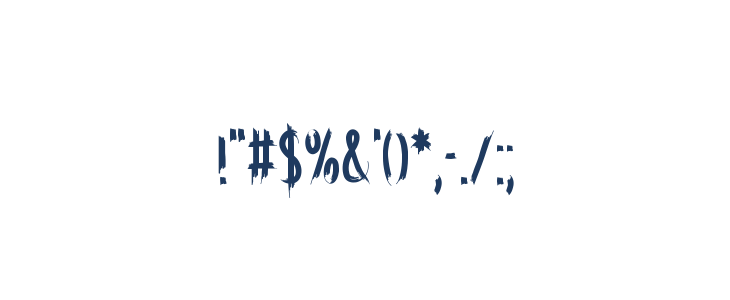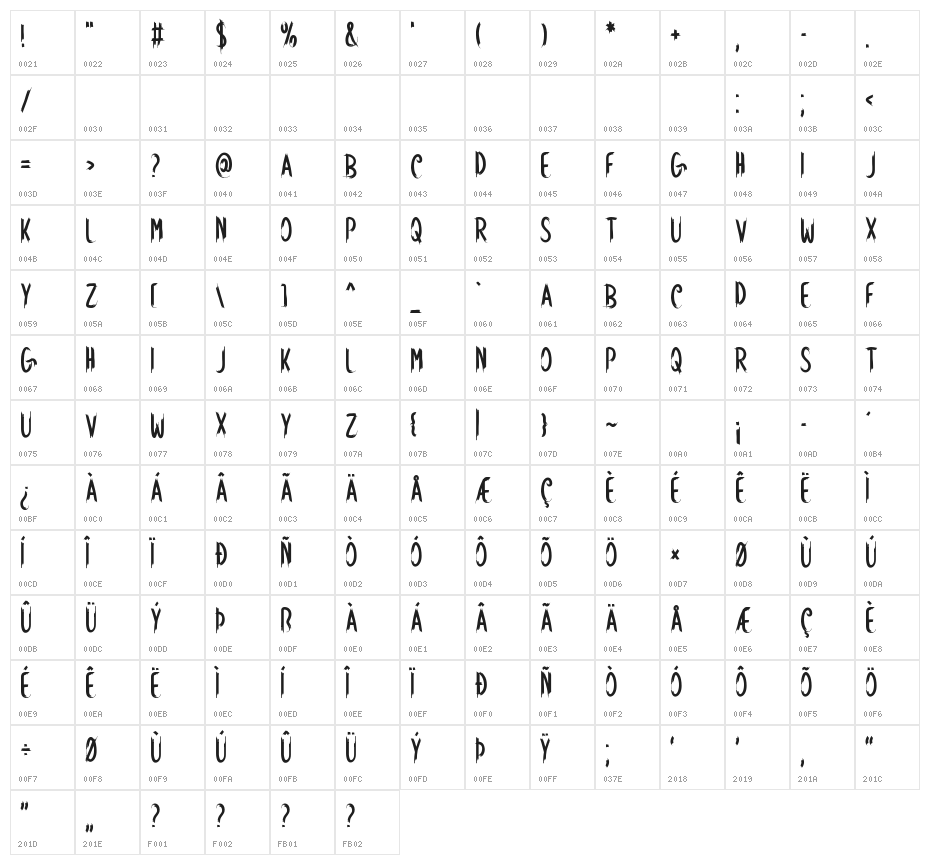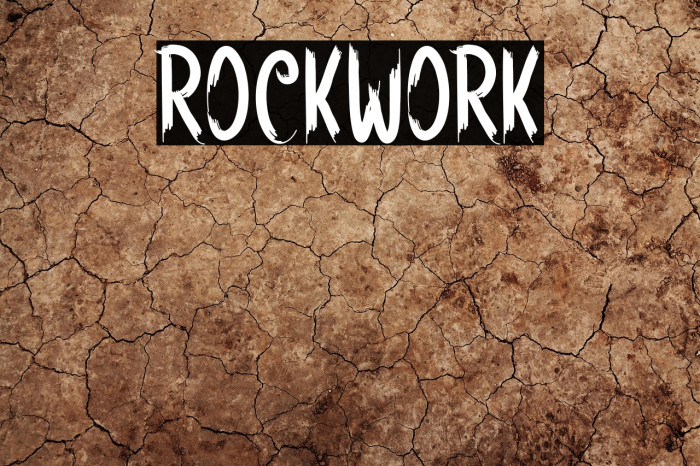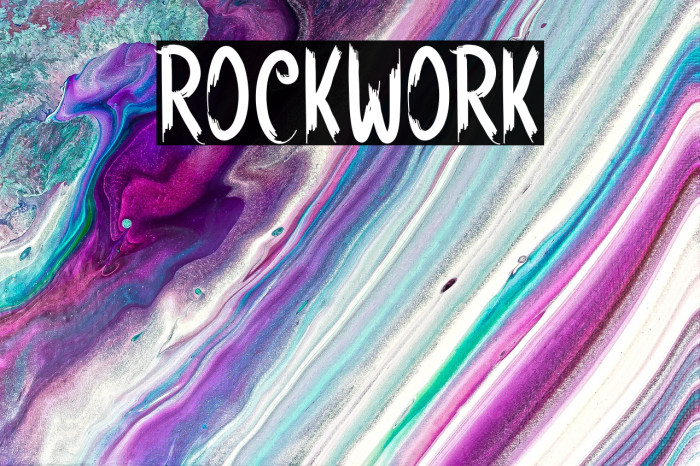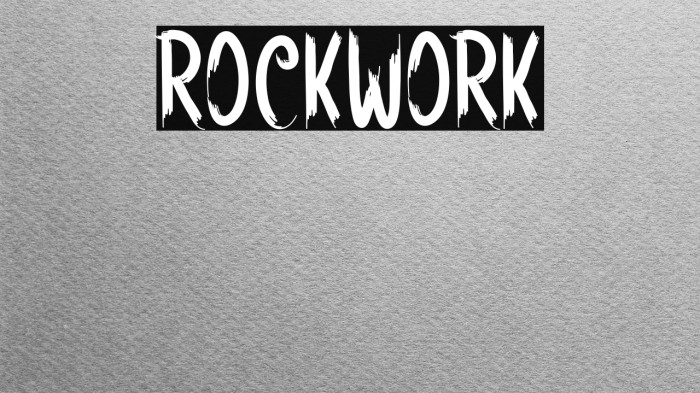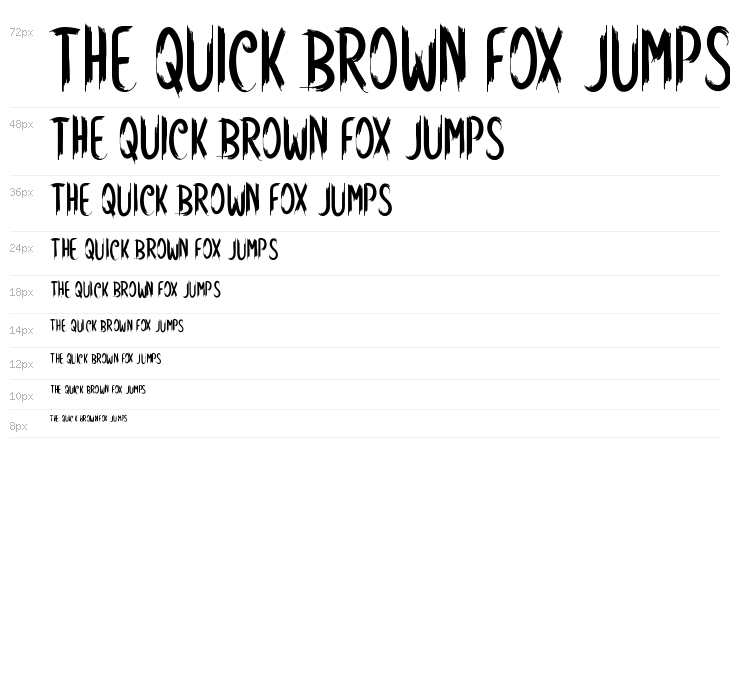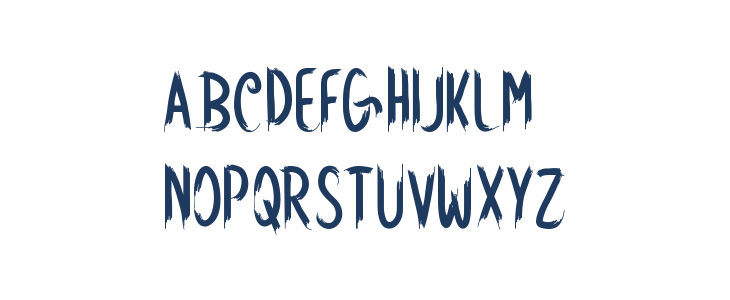
Rockwork Font
Rockwork Description
This font features a bold and dynamic style with a rough, textured appearance. The characters have a hand-drawn quality, with uneven strokes that give it an edgy and rebellious feel. The uppercase letters are tall and narrow, while the lowercase letters maintain a consistent height, creating a cohesive look. The font includes a full set of uppercase and lowercase letters, numbers, and a variety of special characters. Its unique style makes it stand out, perfect for projects that require a strong visual impact.
| Overall Style | Modern, Edgy |
| Proposed Projects | Ideal for music album covers, posters, branding for edgy or alternative products, and event flyers. |